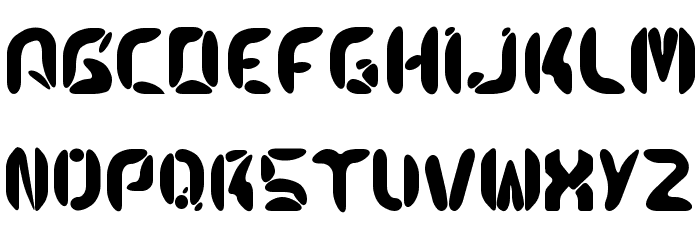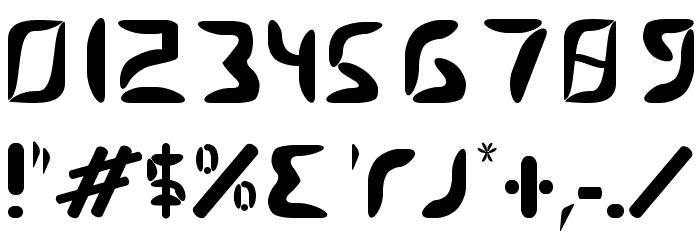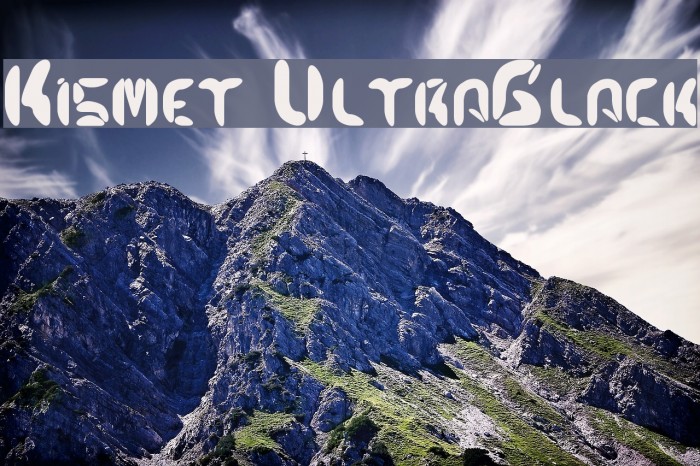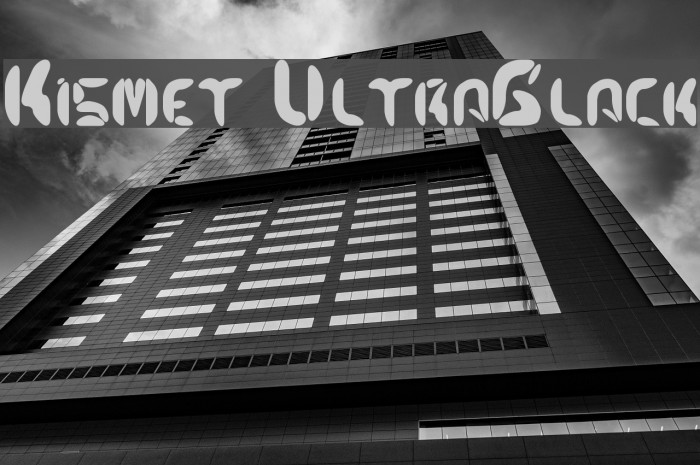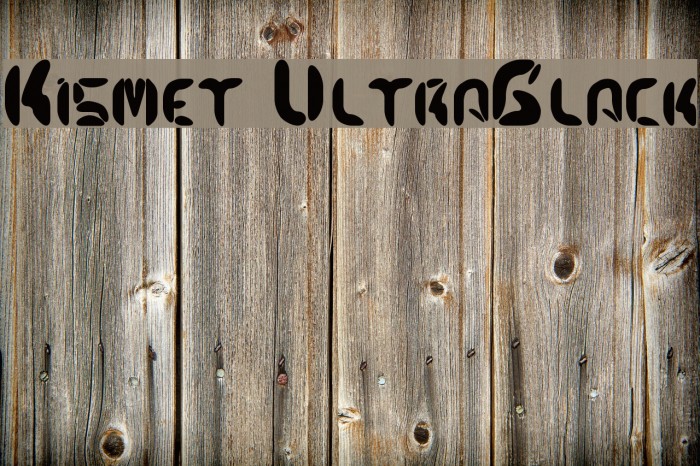
Kismet UltraBlack Font
This font features a bold and ultra-black style with a unique, modern twist. The characters are heavily stylized with thick strokes and abstract cutouts, creating a striking visual impact. Each letterform is distinct, with a playful yet sophisticated appearance, making it ideal for attention-grabbing designs. The uppercase and lowercase letters maintain a consistent weight, while the numbers and special characters follow the same bold aesthetic. The overall design is highly decorative, with a futuristic feel that sets it apart from traditional fonts.
A bold, ultra-black font with abstract cutouts and a modern, decorative style.
- Font: Kismet UltraBlack
- Proposed Projects: Ideal for branding, poster design, album covers, and any project requiring a bold, modern aesthetic.
- Overall Style: Modern, Decorative